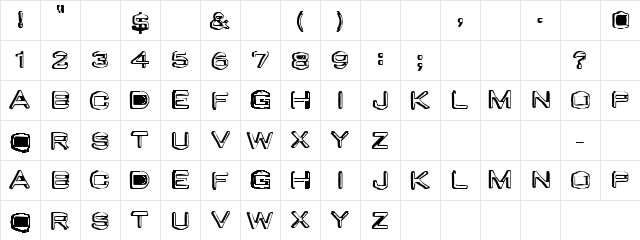
Quote Sasha Regular
Design Context for Quote Sasha Typeface
Quote Sasha is a composed and adaptable typeface that performs quietly and consistently across a wide range of design contexts.